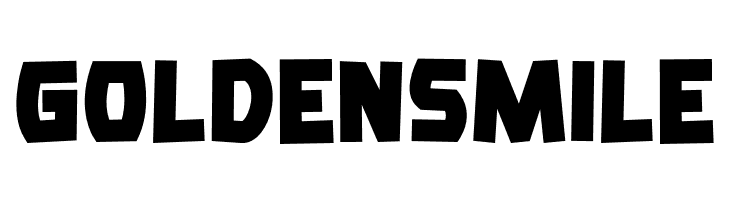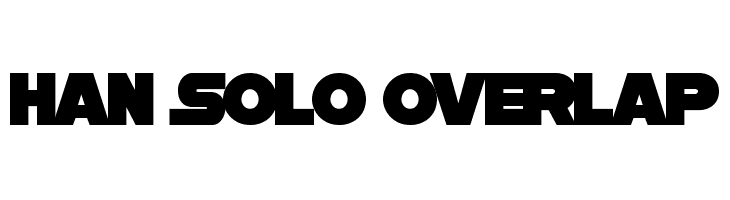
A playful, hand-drawn font with a whimsical and friendly style.
A bold, geometric sans-serif font with a modern and professional look.
A bold, geometric font with a modern, futuristic style.
A modern, clean sans-serif font with consistent stroke width and high readability.
A playful and elegant font with cursive-like strokes and whimsical design.
A bold, angular, and futuristic font with a dynamic slant.
A decorative font with floral embellishments and bold, framed special characters.
A bold, decorative font with a three-dimensional shadow effect.
A playful and artistic font with unique, irregular letterforms.
A bold, expanded, and italicized font with a futuristic and angular design.
A bold, high-contrast font with wide, striking characters.
A futuristic, geometric font with bold, angular shapes and contrasting strokes.
Playful handwritten font with smooth curves.
A geometric, modern font designed for the Shavian alphabet with a focus on clarity and uniformity.
An elegant script font with flowing, cursive letters and a classic, sophisticated style.
A bold, 3D hollow font with geometric structure and dynamic depth.
A bold, geometric font with block-like shapes and rounded edges.
A bold, angular, and futuristic condensed italic font.
A modern, geometric font with thin, elegant lines.
A modern, elegant script font with flowing, connected characters and high contrast.
A playful, bold font with rounded, bubble-like characters perfect for creative projects.
A bold, three-dimensional font with shadowed outlines for impactful headlines.
A modern, condensed sans-serif font with clean lines and minimal contrast.
A playful, bold, and italic handwritten font with a whimsical style.
A sleek, italicized font with smooth, flowing lines and a modern feel.
A modern, geometric sans-serif font with a clean and compact design.
A graceful and flowing handwritten font with thin, delicate strokes.
A modern, angular font with a futuristic and dynamic design.
A bold, playful font with organic, blob-like shapes and high contrast.
A flowing, elegant script font with a natural handwriting style.
A playful, modern font with bold, dynamic shapes and artistic flair.
A futuristic, geometric font with a bold, 3D outline style.
A playful, hand-drawn font with a sketch-like, textured appearance.